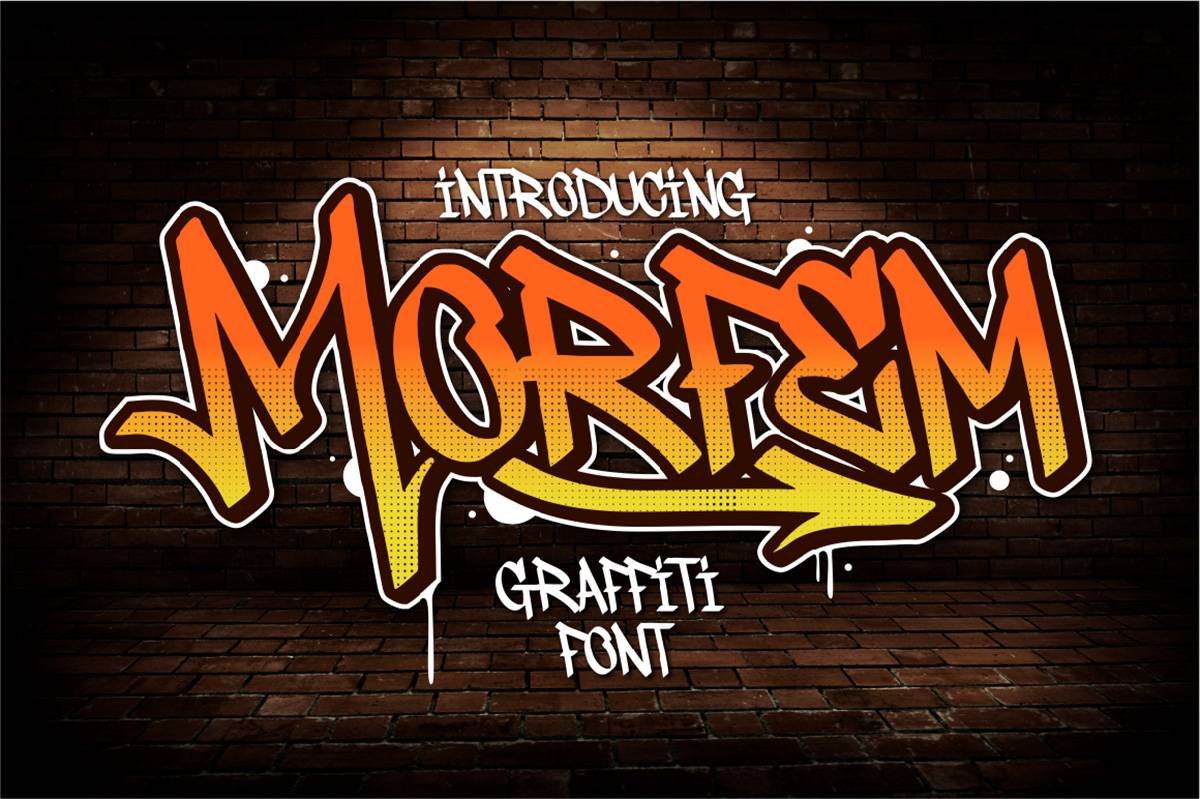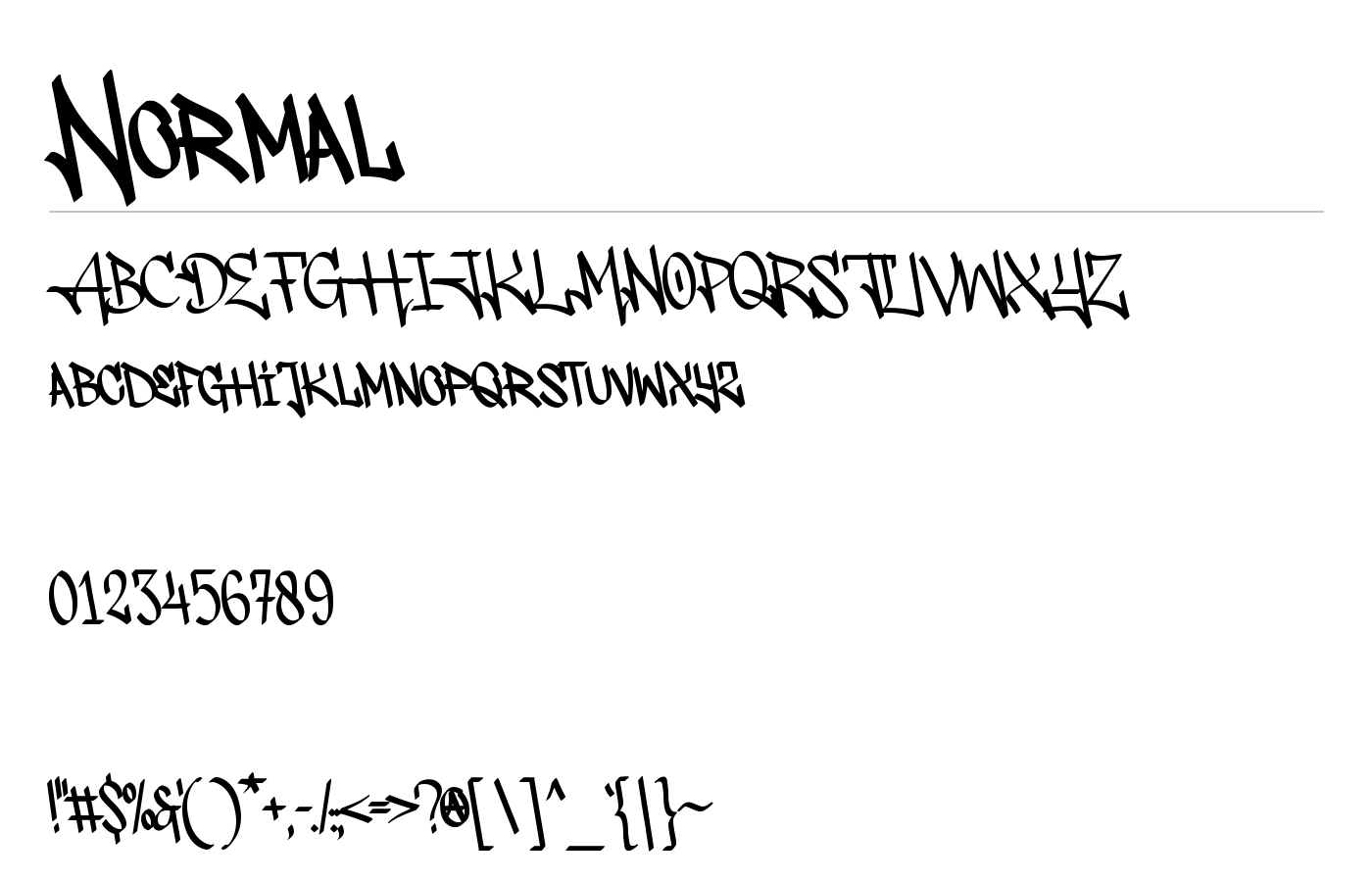
Morfem Font is a distinctive sans serif typeface with a strong graffiti-inspired style, featuring sharp, irregular strokes that convey an urban, edgy vibe. Its tall, narrow letterforms and dynamic angles give it an energetic, rebellious personality, making it perfect for designs needing a bold, street-culture aesthetic. This font works well for eye-catching logos, posters, and headers that aim to stand out with a raw, artistic feel.
Morfem Font
About Morfem Font